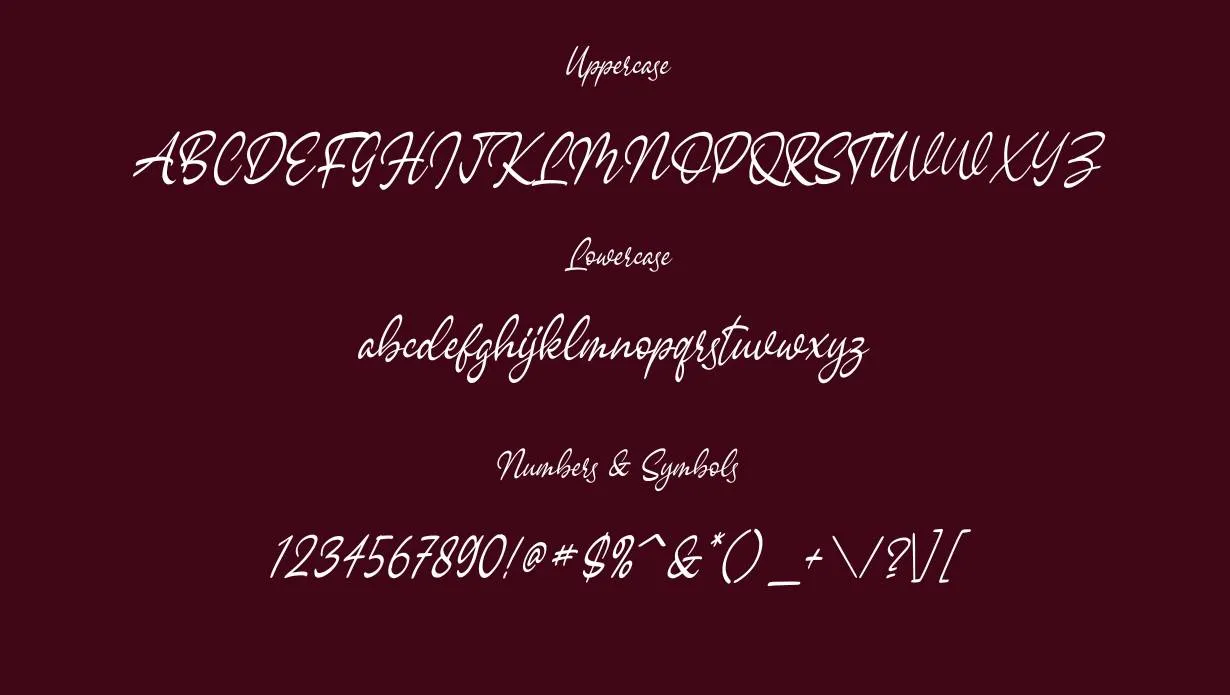
The Sagesta font is a harmonious blend of simplicity and elegance. Its clean lines and balanced proportions give your text a polished and refined appearance, making it suitable for a variety of projects.
Whether you’re designing a business card, a website, or any material that requires a modern and sophisticated look, the Sagesta font lends a touch of contemporary class. Let your words speak with clarity and grace through the understated charm of the Sagesta font.
| Name | Sagesta Font |
| Designer | Charles Sagesta |